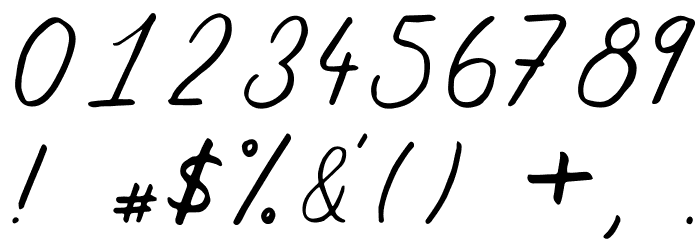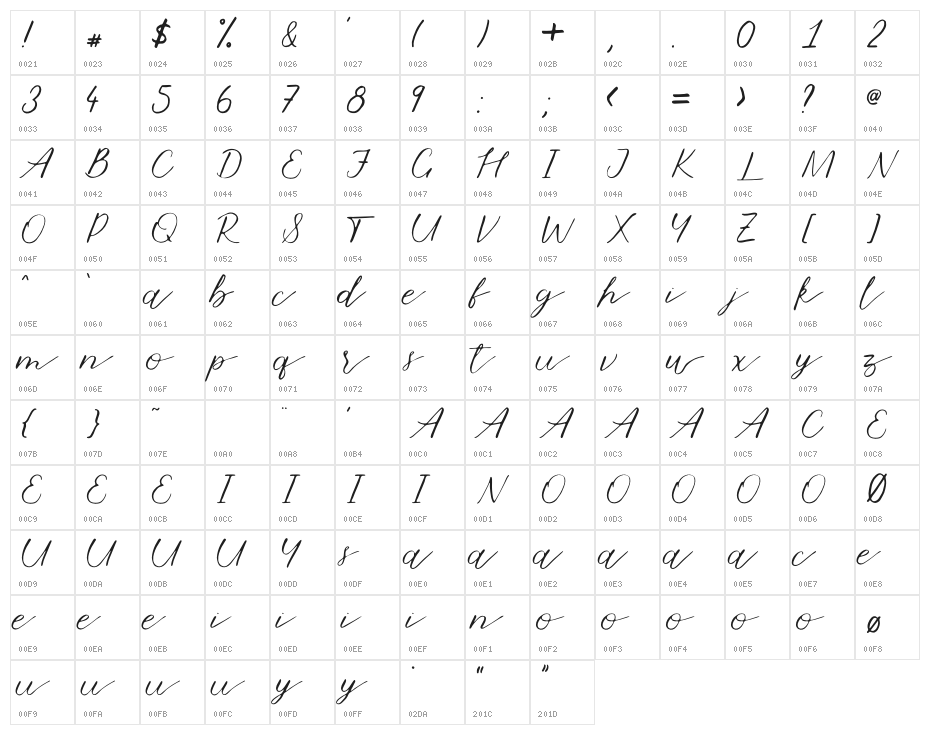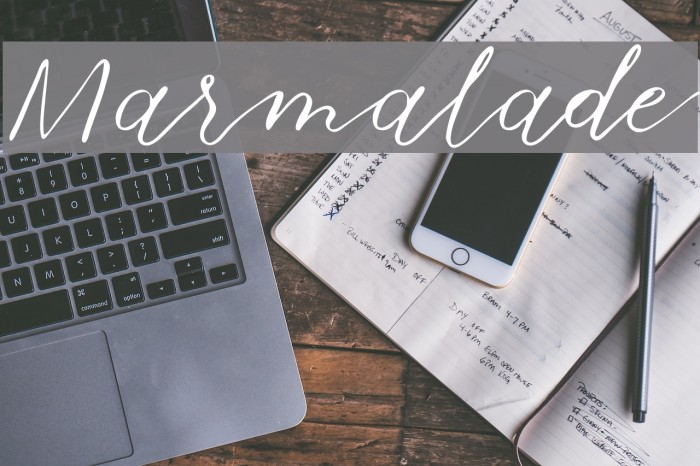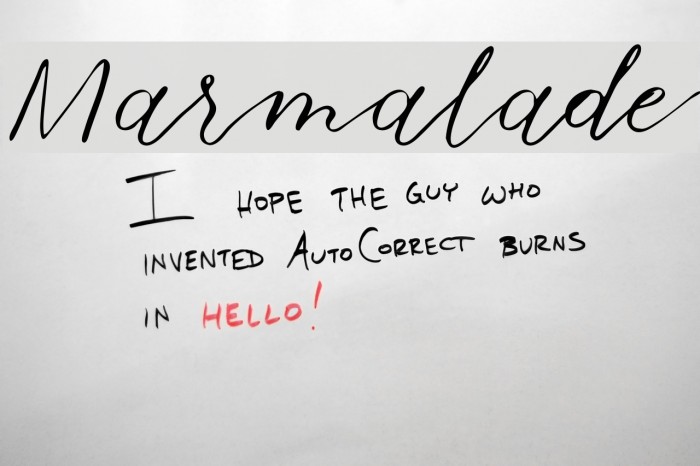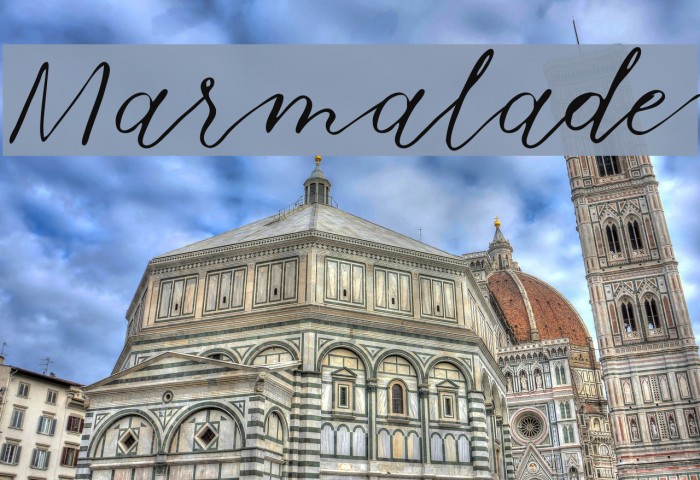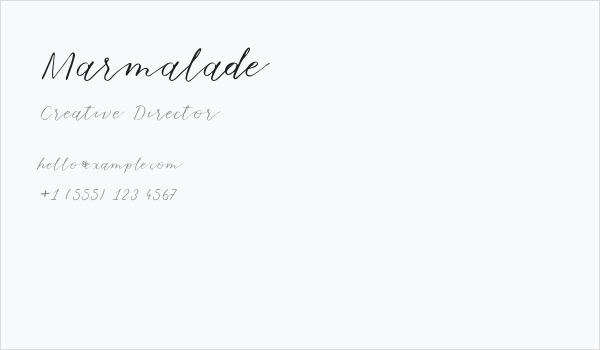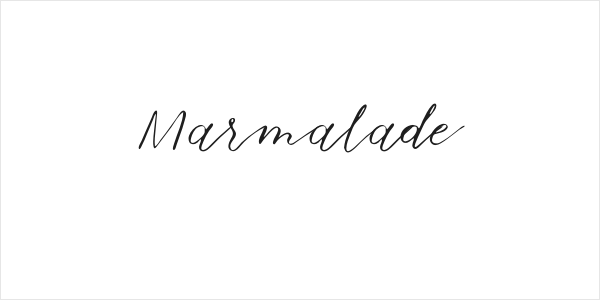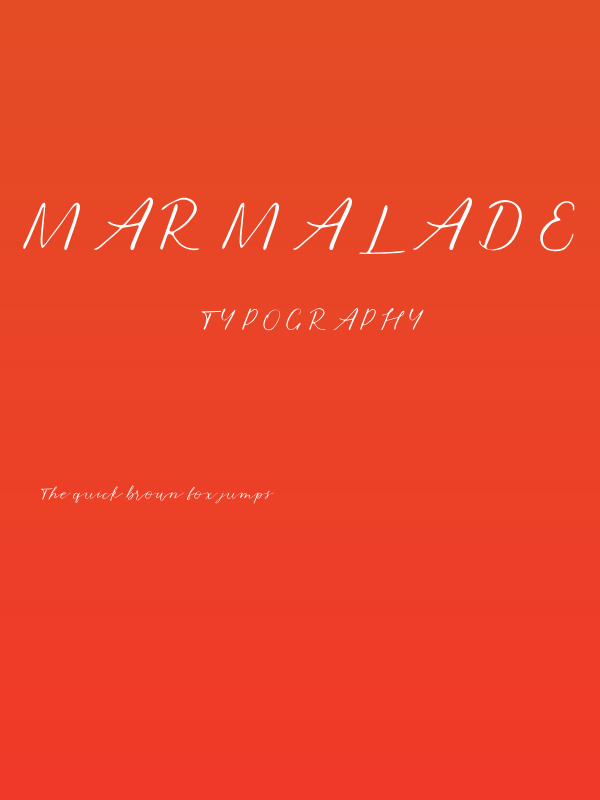
Marmalade Font
Marmalade Description
This font exudes a charming and elegant handwritten style, characterized by its fluid and cursive letterforms. The uppercase letters are slightly more structured, maintaining a consistent slant that adds to its graceful appearance. The lowercase letters flow seamlessly, with smooth curves and delicate loops that enhance its handwritten aesthetic. The numerals are clear and legible, following the same cursive style, which makes them blend well with the alphabet. Special characters are thoughtfully designed, maintaining the overall fluidity and elegance of the font. This font is perfect for projects that require a personal touch, such as invitations, greeting cards, or branding materials.
| Use Case | Headlines, Invitations, Personal projects |
| Proposed Projects | Ideal for invitations, greeting cards, branding materials, and personal projects. |